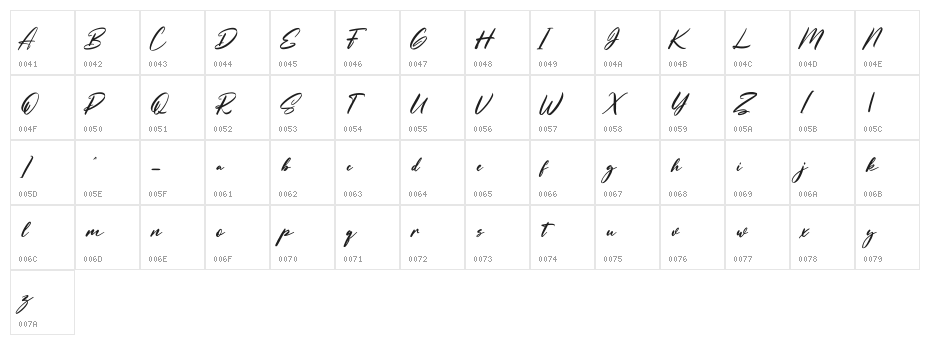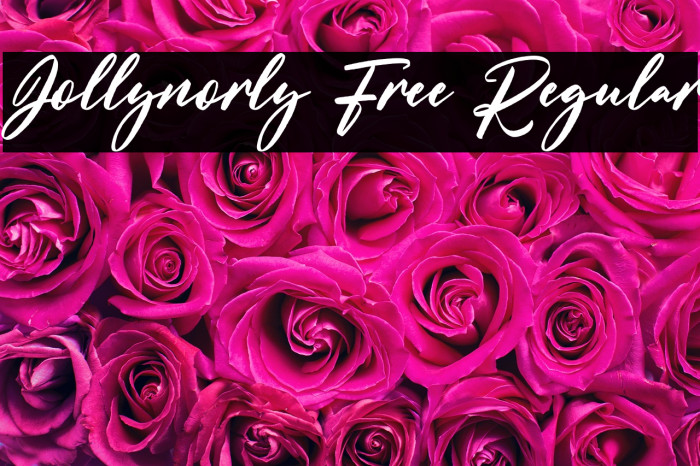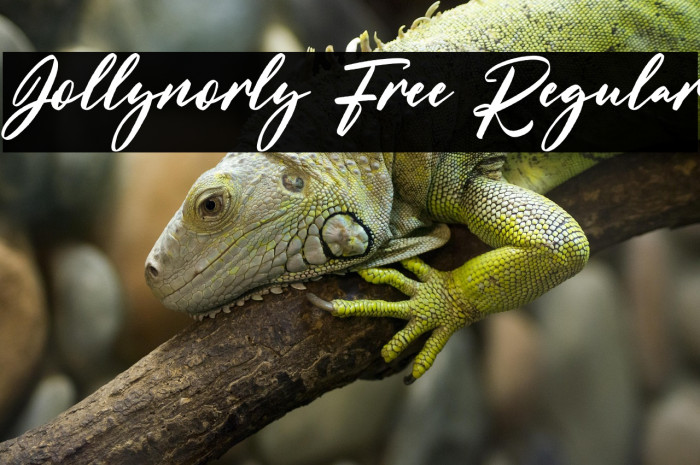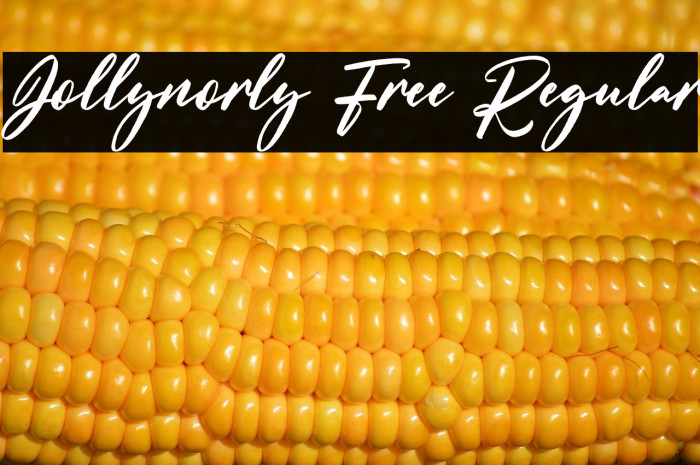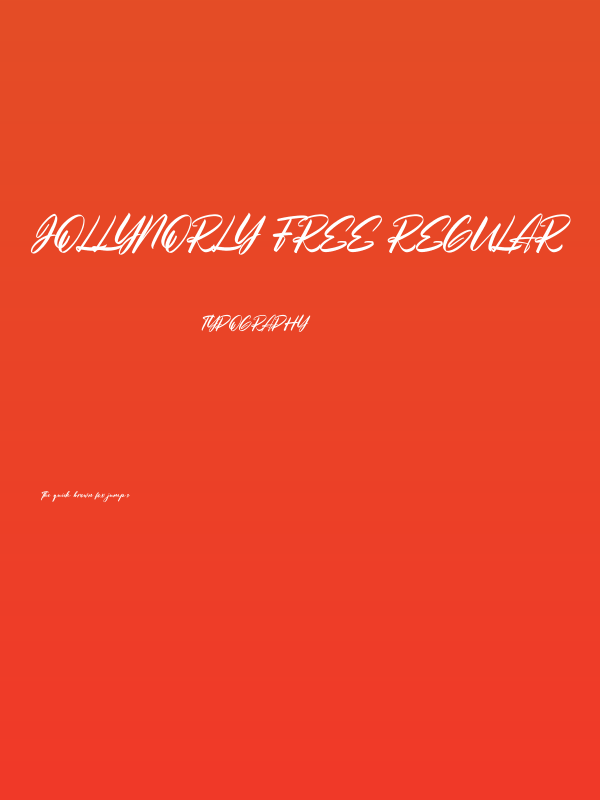
Jollynorly Free Regular Font
Jollynorly Free Regular Description
This font exudes a lively and dynamic character with its flowing, cursive script style. The letters are elegantly connected, showcasing a sense of movement and fluidity. The uppercase letters are bold and prominent, while the lowercase letters maintain a graceful and consistent flow. The strokes are smooth and slightly varied in thickness, adding a touch of sophistication. This font is ideal for projects that require a personal and artistic touch, such as invitations, greeting cards, and branding materials. Its unique style makes it stand out, capturing attention with its expressive and stylish appearance.
| Proposed Projects | Ideal for invitations, greeting cards, branding materials, and artistic projects. |